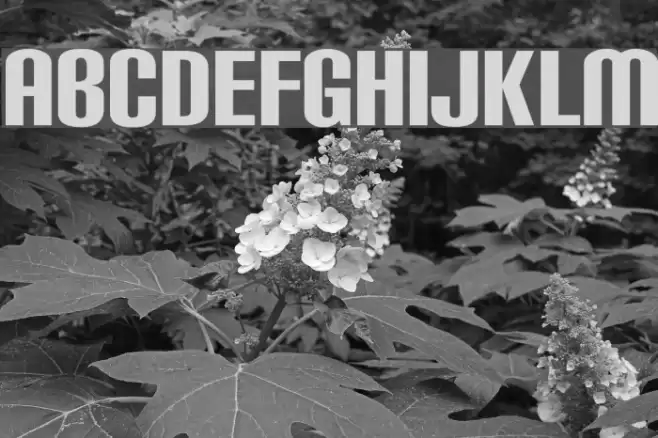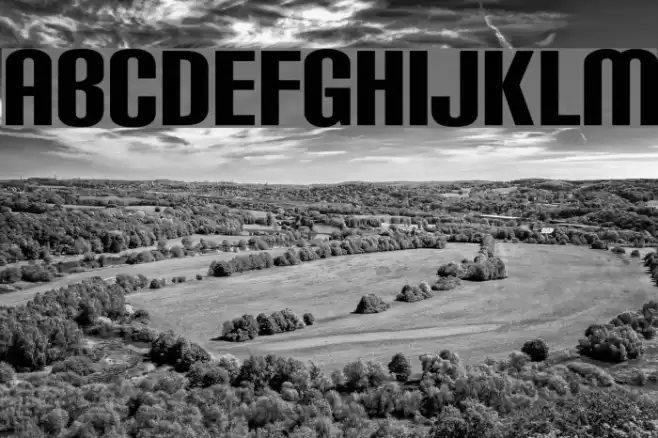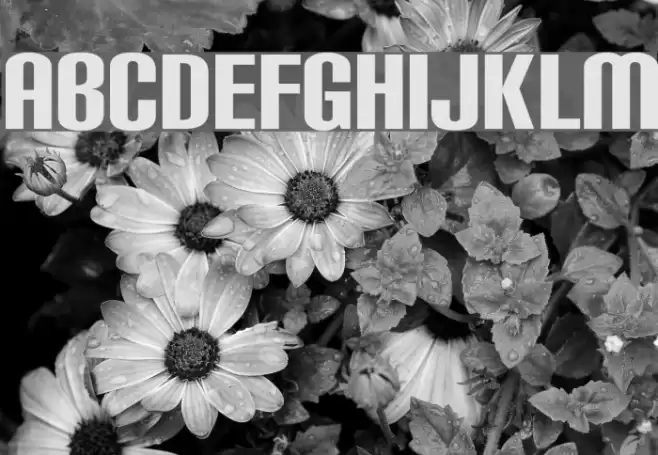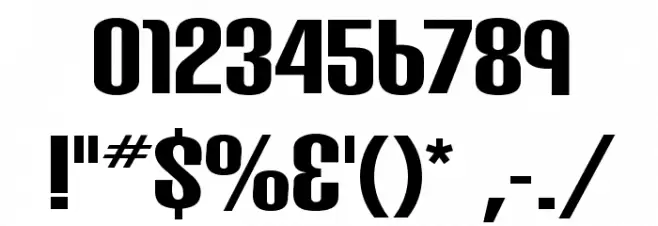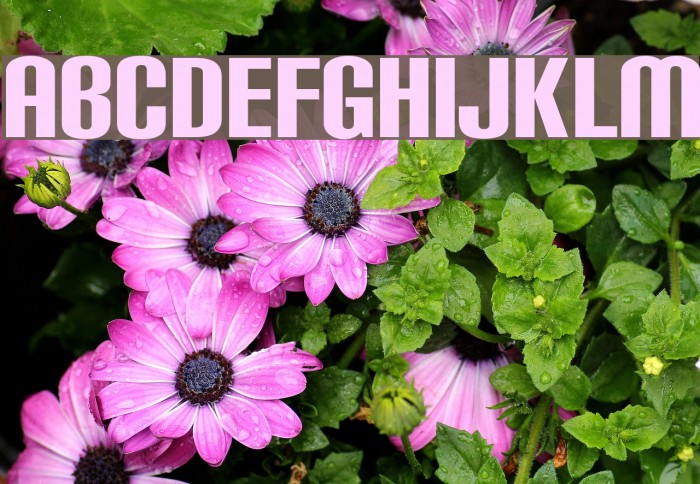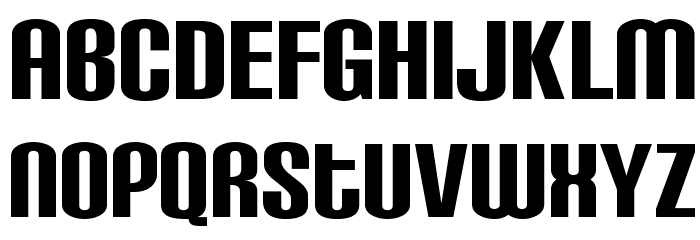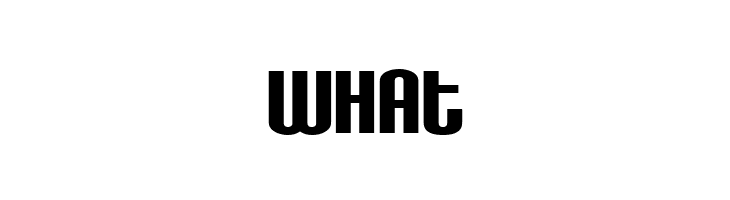
Carbon Block Font
Carbon Block Description
This font features bold, geometric letterforms with a strong presence. The characters are uniformly thick, giving a robust and impactful appearance. The uppercase letters are particularly striking, with a consistent height and width that emphasizes their block-like structure. The lowercase letters maintain the same boldness, ensuring readability and uniformity across different text sizes. Numbers and special characters are designed to match the overall style, providing a cohesive look. The font's design is modern and clean, making it suitable for a variety of applications where a strong visual impact is desired.
A bold, geometric font with a strong, modern presence from Capitals fonts.
- Proposed Projects: Ideal for headlines, posters, branding, and any design requiring a bold statement.